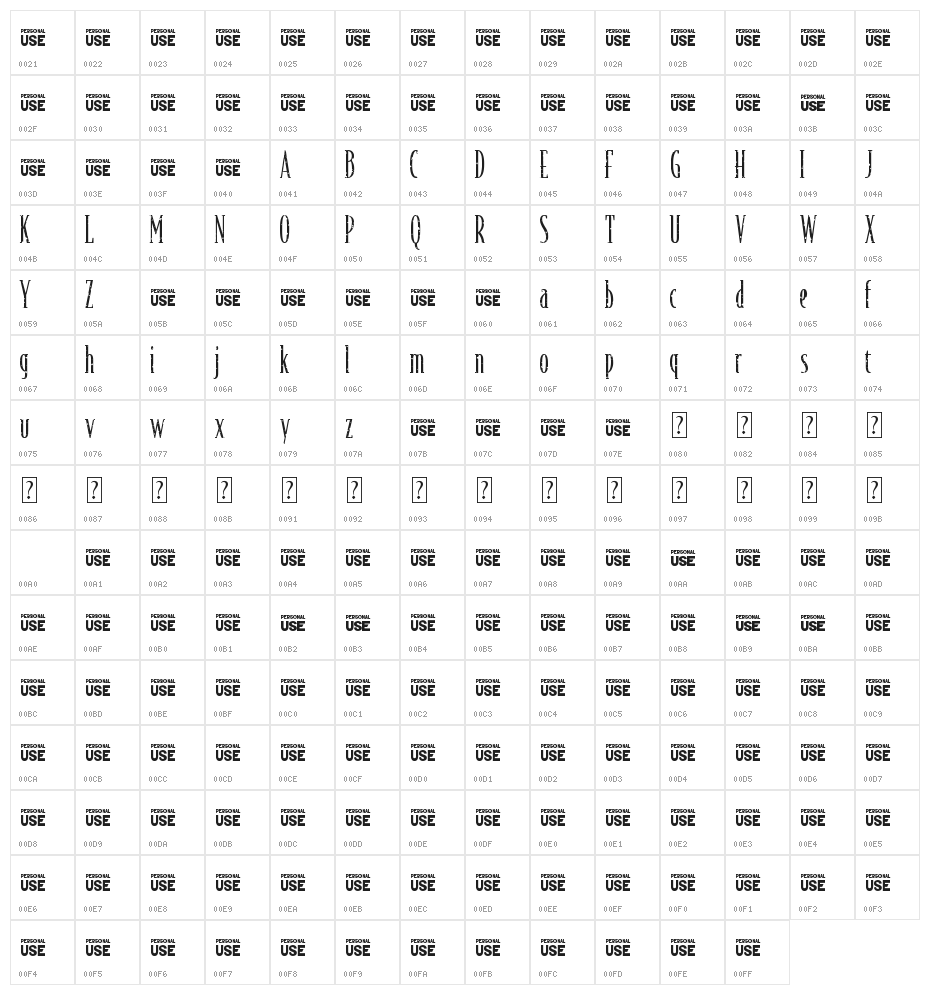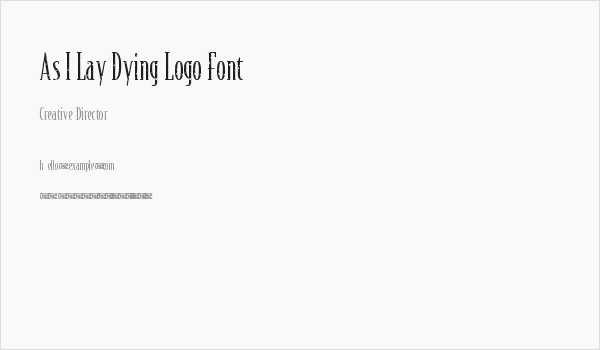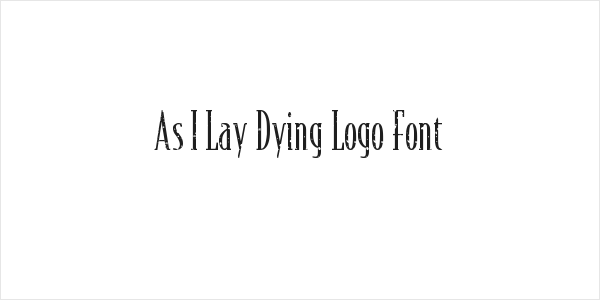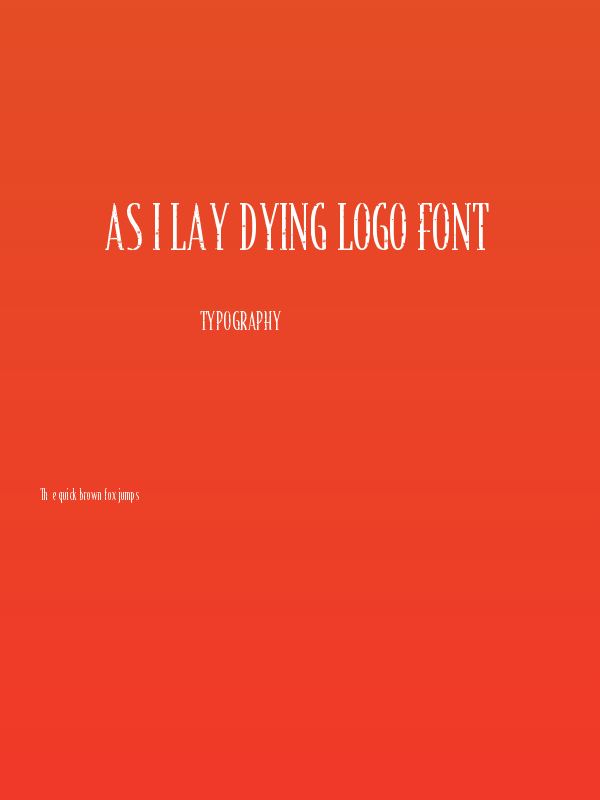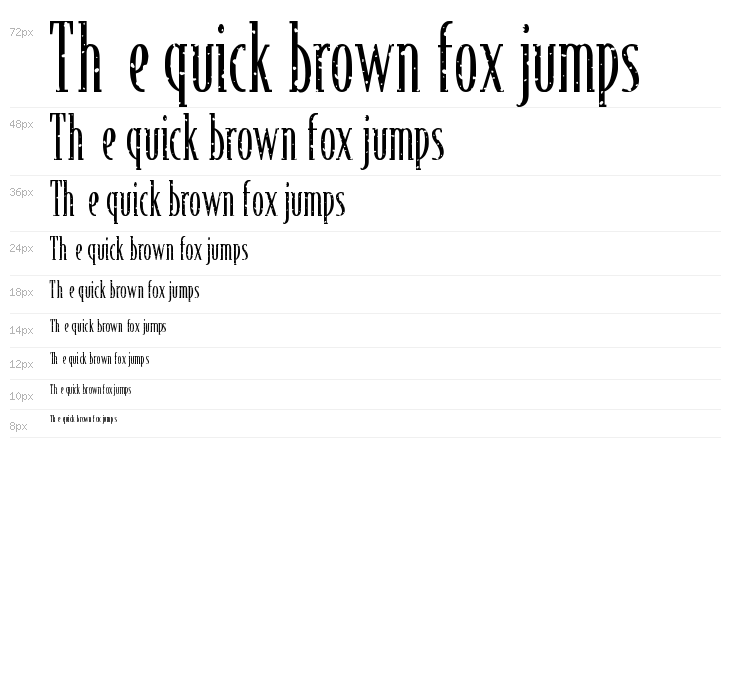
As I Lay Dying Logo Font Font
| Stile generale | Vintage, Grunge |
| Caso d'uso | Logos, Headlines |
| Progetti proposti | Ideal for music album covers, band logos, posters, and edgy branding projects. |